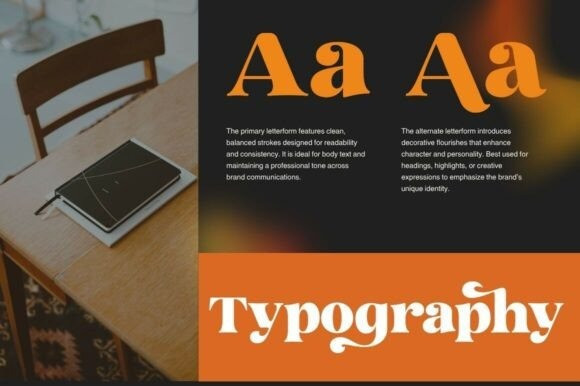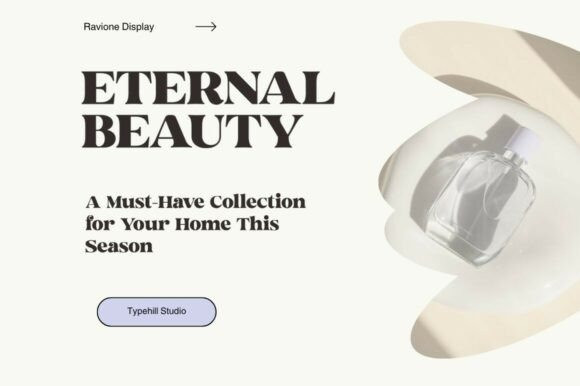
Ravione Display Font
Ravione Display Font is a modern serif typeface that blends classic elegance with contemporary flair. Designed with distinctive curves and refined serifs, Ravione offers a bold and artistic look perfect for branding, editorial design, product packaging, invitations, and more.
This typeface stands out with its playful swashes, rounded terminals, and dramatic contrast, making it ideal for headlines, logos, and eye-catching display purposes. Whether you’re creating a luxury fashion brand or a stylish magazine layout, Ravione brings a sophisticated yet expressive character to your design.